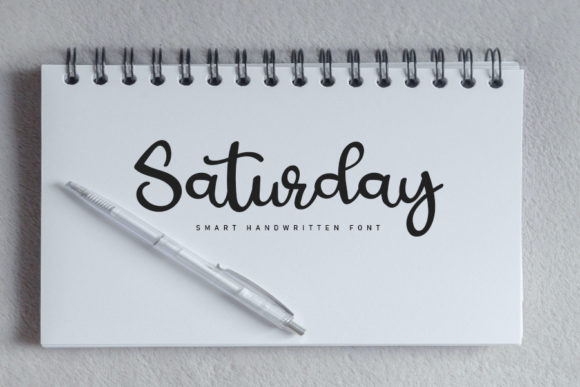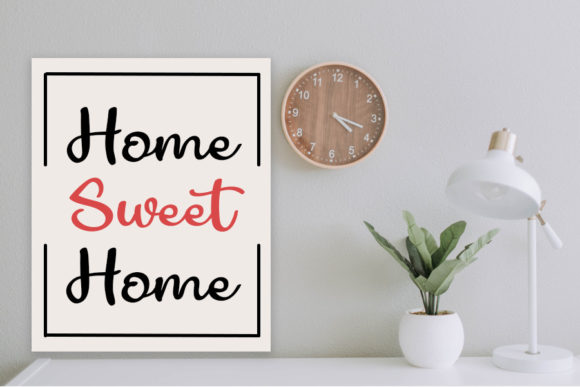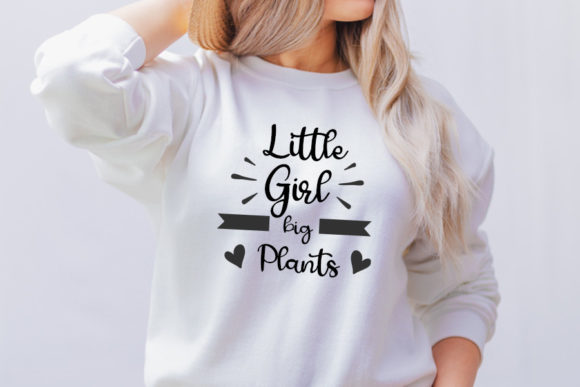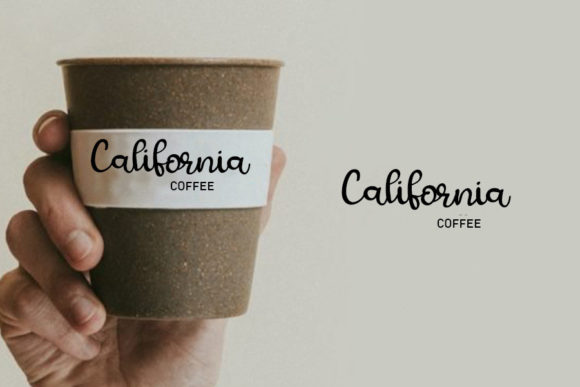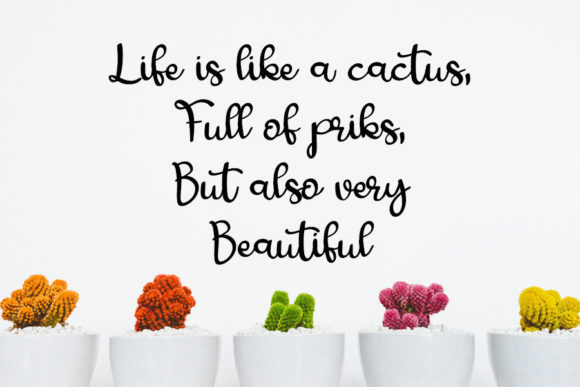
Saturday Font
About Saturday Font
“Saturday” sounds like an exceptionally unique handwritten font, designed with mastery to become a favorite for creative projects. Let’s explore its features and the potential impact it can have on design endeavors:
**Incredibly Unique Design:**
The description of Saturday as incredibly unique suggests that it stands out from conventional fonts. This uniqueness can contribute to creating a distinctive and memorable visual identity in your designs.
**Masterfully Designed:**
The term “masterfully designed” emphasizes the high level of craftsmanship behind Saturday. This font isn’t just a set of characters; it’s an intentional creation, showcasing a level of artistry that can elevate your design projects.
**Potential to Bring Ideas to the Highest Level:**
The claim that Saturday has the potential to bring creative ideas to the highest level implies that it can enhance and elevate the overall impact of your designs. Fonts with this quality often become integral to the creative process, adding a unique and refined touch to the final result.
**PUA Encoded:**
The mention of PUA (Private Use Area) encoding indicates that Saturday allows access to additional glyphs and ligatures. This feature enhances the font’s versatility, providing designers with a broader range of creative options and customization.
**Ease of Access to Glyphs and Ligatures:**
The note about easy access to amazing glyphs and ligatures suggests that using Saturday in your designs is not only visually appealing but also user-friendly. Designers can navigate and apply these additional elements seamlessly, enhancing the overall design experience.
Incorporating Saturday into your creative projects could result in a visually distinctive and refined outcome. Whether you’re working on branding, marketing materials, or any design endeavor, this font appears to be crafted to add a unique flair to your ideas.
Explore the additional glyphs and ligatures provided by the PUA encoding to fully unlock Saturday’s creative potential. Its uniqueness and the thoughtful design make it a valuable asset for designers looking to infuse their projects with a touch of masterful craftsmanship.